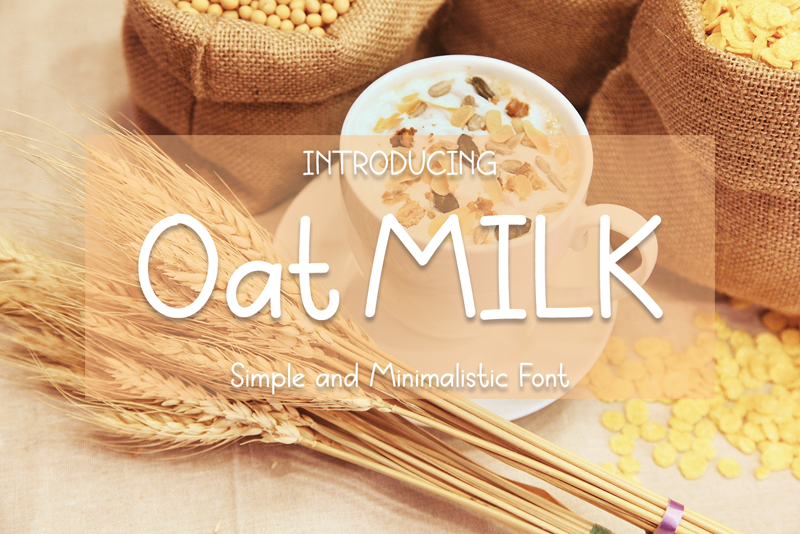
Oat Milk is a sweet, simple lettered and adaptable handwritten font. Its cute and full of life style makes this font a wonderful choice for brightening up your designs. Attention : Oat Milk handwriting Font is prohibited to use this font for commercial purposes or for profit without the permission of the author/admin, without being known to use this font without permission, will be subject to sanctions 5x the specified price. This font is used only for demos (Demo license) If you want to use this font for commercial use please contact email: erikluluk0@gmail.com or click the link below: https://www.creativefabrica.com/product/oat-milk/ref/761303/ If you want to see more other fonts, please click:https://www.creativefabrica.com/designer/erik-studio/ref/745146/ Any donations are very appreciated. Paypal account for donation: https://paypal.me/eriksupriyant thanks. |